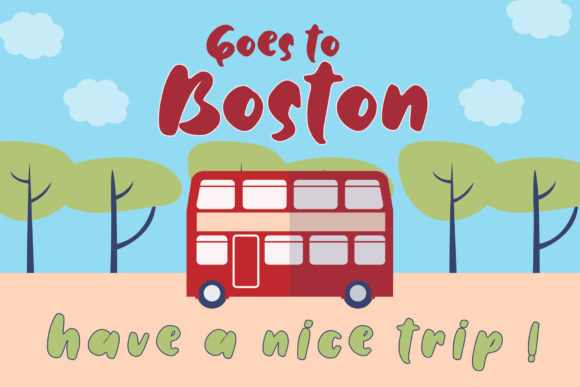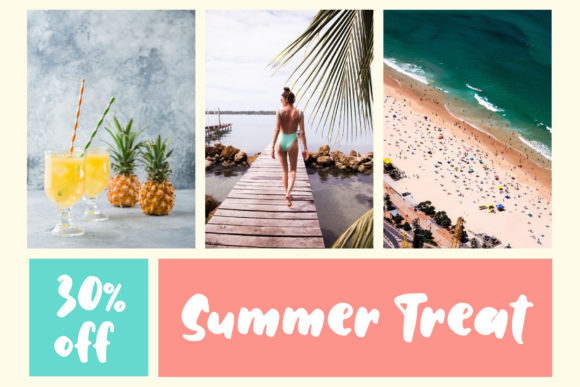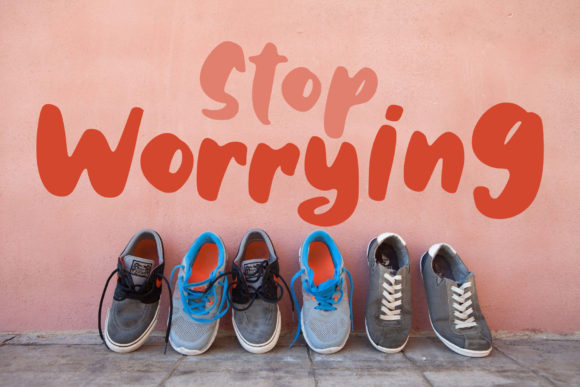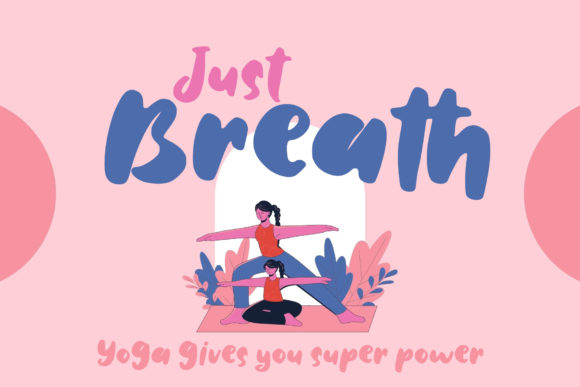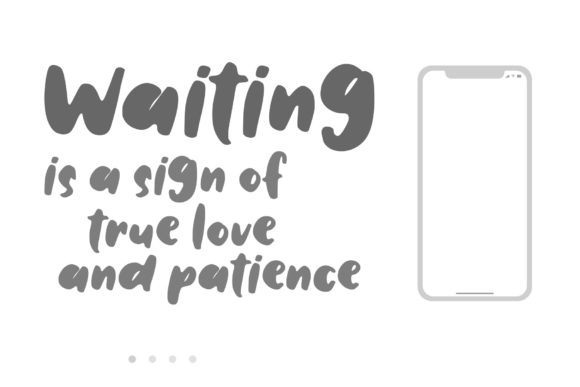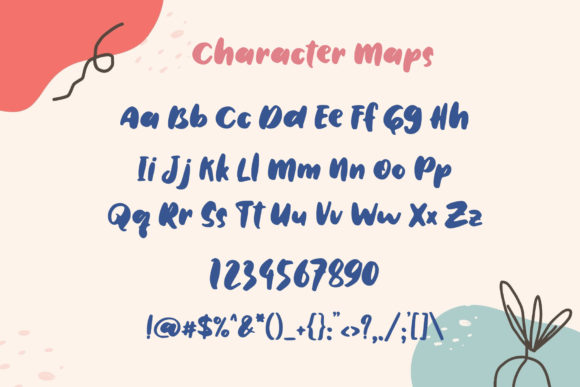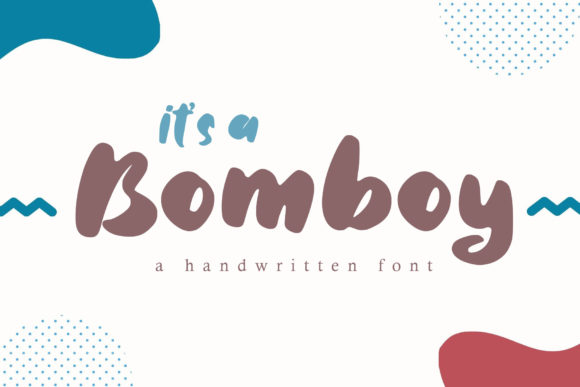
Bomboy Font: The Sweet and Playful Choice for Designers and Crafters
Are you looking for a font that can add a touch of warmth and playfulness to your design projects? Look no further than the Bomboy Font! This sweet, all-round, and thick-lettered handwritten font is perfect for designers and crafters who want to create stunning works of art. In this article, we’ll dive into the features and benefits of the Bomboy Font, and explore how it can elevate your design game.
What is Bomboy Font?
Bomboy Font is a unique and charming handwritten font that is designed to bring a sense of joy and warmth to your designs. With its thick and rounded letters, this font is perfect for creating eye-catching headings, titles, and quotes that will grab the attention of your audience. The font’s playful and carefree vibe makes it ideal for a wide range of design projects, from branding and advertising to crafting and DIY tutorials.
Key Features of Bomboy Font
So, what makes Bomboy Font so special? Here are some of its key features:
- Sweet and Playful Design: Bomboy Font has a sweet and playful design that is sure to bring a smile to your face. Its rounded letters and gentle curves make it a delight to use in your designs.
- Thick and Bold Letters: The font’s thick and bold letters make it perfect for creating eye-catching headings and titles that will stand out from the crowd.
- All-Round Versatility: Bomboy Font is an all-round font that can be used in a wide range of design projects, from digital designs to print materials.
- Easy to Read: Despite its playful design, Bomboy Font is easy to read, making it perfect for body text and longer passages of text.
Benefits of Using Bomboy Font
So, why should you choose Bomboy Font for your design projects? Here are some of the benefits of using this amazing font:
- Adds a Personal Touch: Bomboy Font adds a personal touch to your designs, making them feel more approachable and friendly.
- Perfect for Branding and Advertising: The font’s playful and attention-grabbing design makes it perfect for branding and advertising projects that need to stand out.
- Ideal for Crafting and DIY Tutorials: Bomboy Font is also ideal for crafting and DIY tutorials, where its clear and easy-to-read design can help guide readers through complex projects.
- Easy to Pair with Other Fonts: Bomboy Font is easy to pair with other fonts, making it a versatile choice for designers who like to experiment with different font combinations.
How to Use Bomboy Font in Your Designs
Using Bomboy Font in your designs is easy! Here are some tips to get you started:
- Use it as a Heading Font: Bomboy Font is perfect for use as a heading font, where its bold and playful design can grab the attention of your audience.
- Pair it with Other Fonts: Experiment with pairing Bomboy Font with other fonts to create interesting and unique font combinations.
- Use it in Digital Designs: Bomboy Font is perfect for use in digital designs, such as social media graphics, blog posts, and email newsletters.
- Use it in Print Materials: The font is also suitable for use in print materials, such as brochures, flyers, and posters.
In conclusion, Bomboy Font is a sweet and playful font that is perfect for designers and crafters who want to add a touch of warmth and personality to their designs. With its thick and bold letters, all-round versatility, and easy-to-read design, this font is sure to become a favorite in your design arsenal. So why not give Bomboy Font a try today and see how it can elevate your design game?
Whether you’re a seasoned designer or a crafting enthusiast, Bomboy Font is a great choice for anyone looking to add a little joy and personality to their designs. So go ahead, get creative, and see what amazing designs you can create with Bomboy Font!